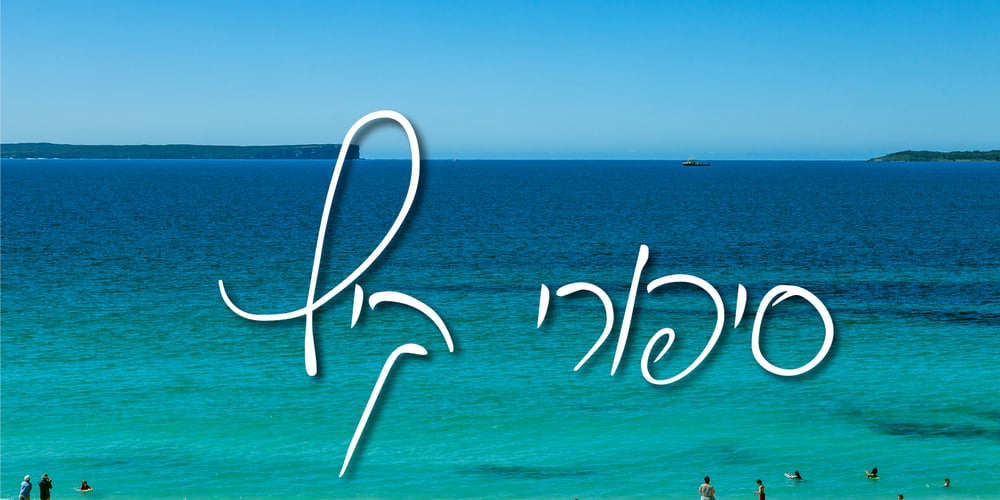
Elamy MF Font Family was designed by Galit Goldenberg and published by Masterfont. Elamy MF contains 2 styles and family package options. Intuitive freestyle handwriting font, with unique emphasizes on curves and rhythm.